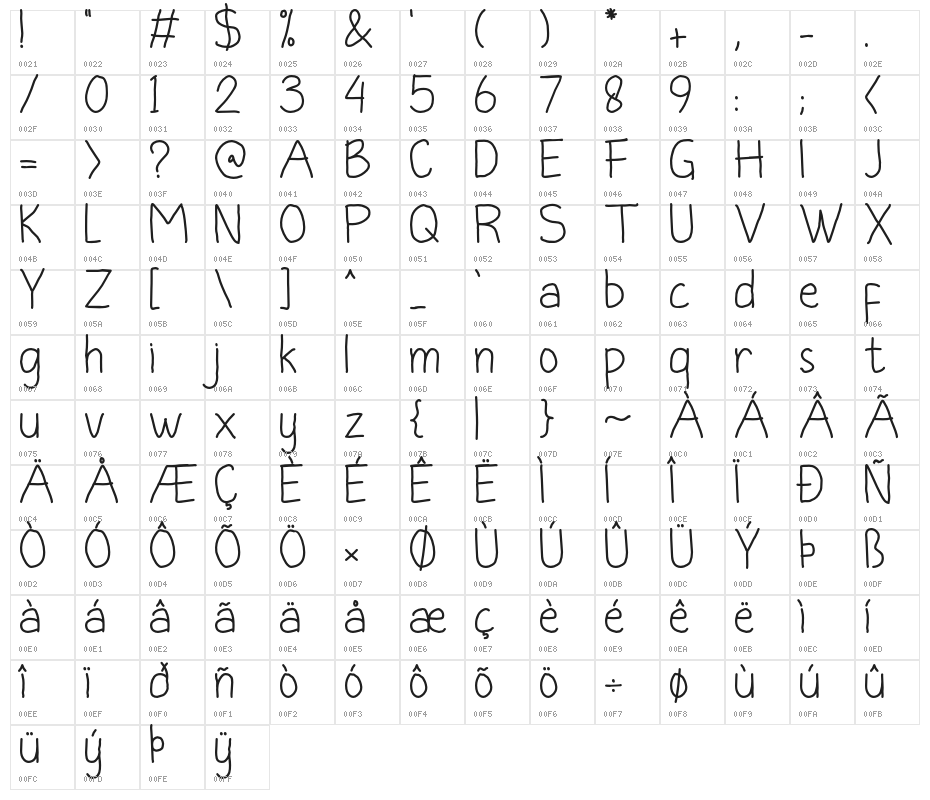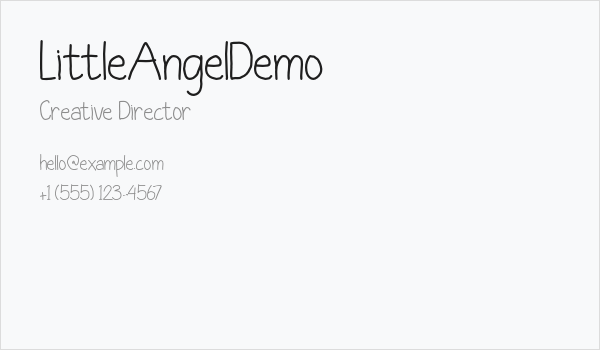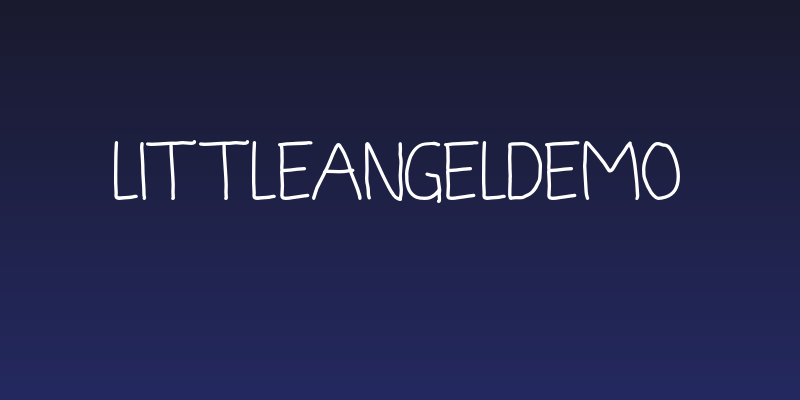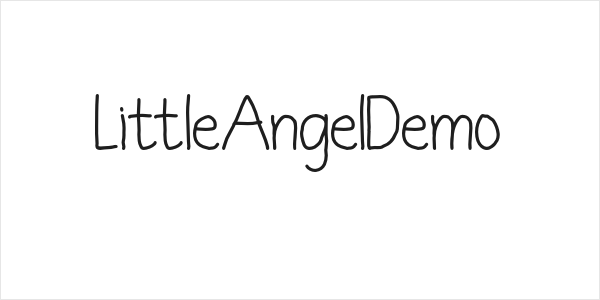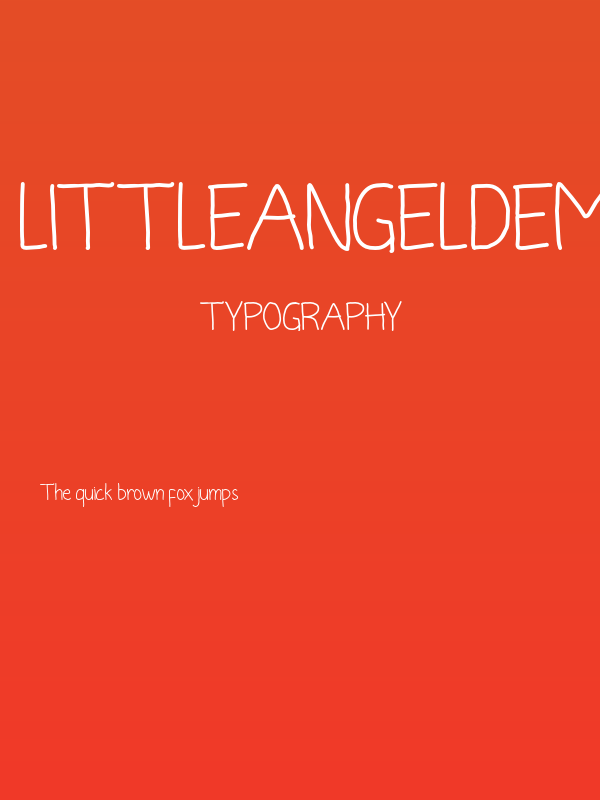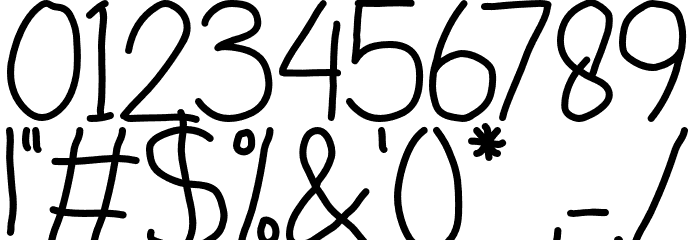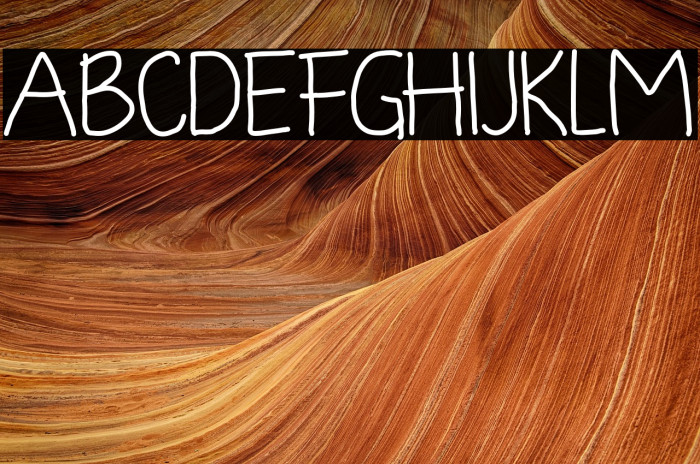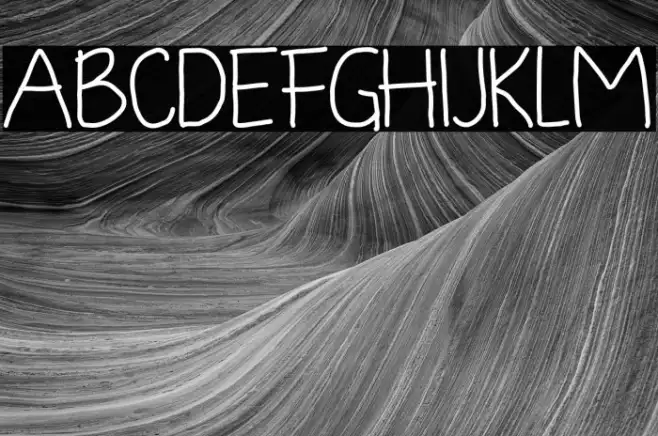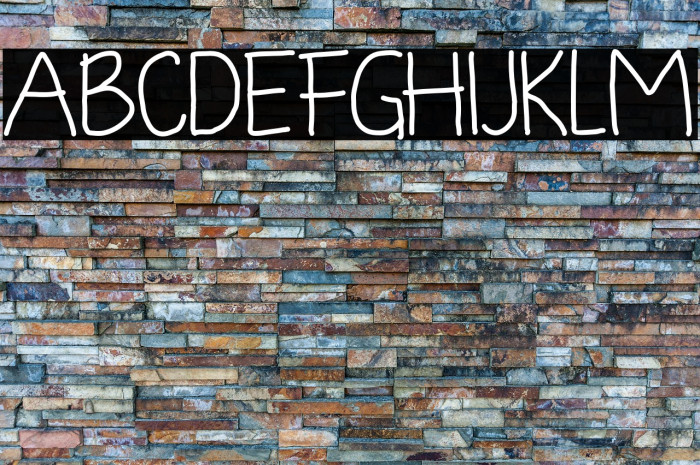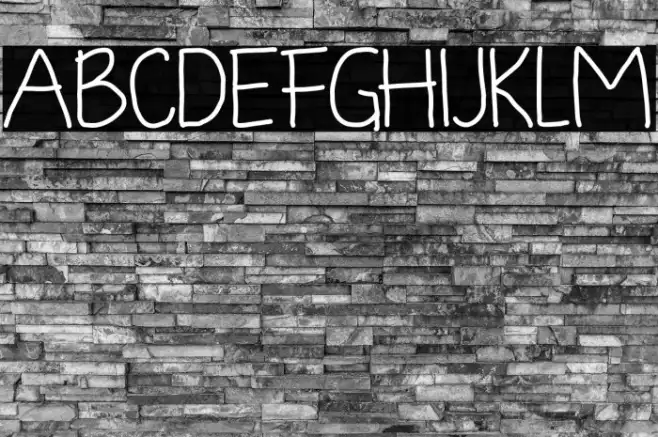
LittleAngelDemo Font
LittleAngelDemo Description
This playful and whimsical font features a handwritten style that exudes a sense of fun and creativity. The characters are slightly irregular, giving them a charming and personal touch. The uppercase letters are tall and slender, while the lowercase letters maintain a consistent height, adding to the font's legibility. Numbers and special characters are designed with the same playful aesthetic, making them suitable for a variety of informal contexts. The strokes are consistent in thickness, providing a harmonious appearance across all characters.
| Use Case | Headlines, Informal text, Creative projects |
| Proposed Projects | Ideal for children's books, greeting cards, playful branding, and casual invitations. |